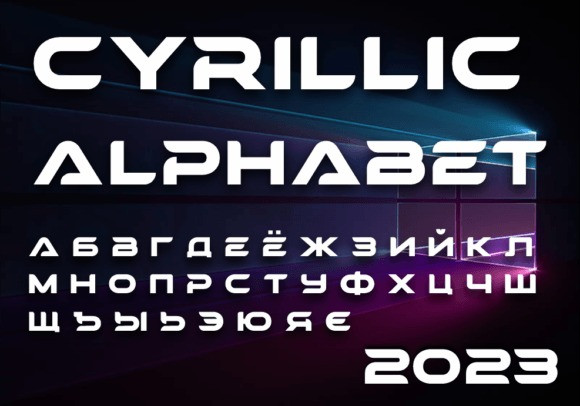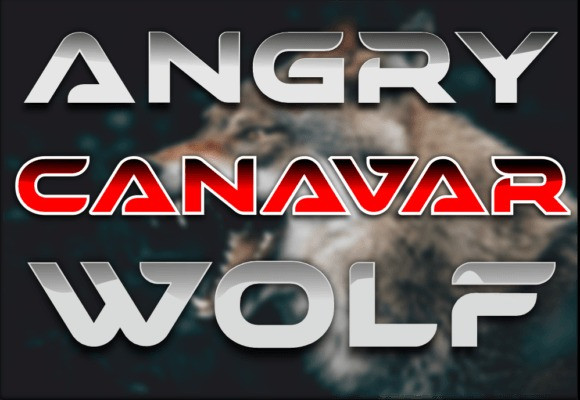
Canavar Font
Canvar Display Font is a cool and stunning display font. This modern and bold vibe can easily apply to your favorite designs that require a powerful touch.